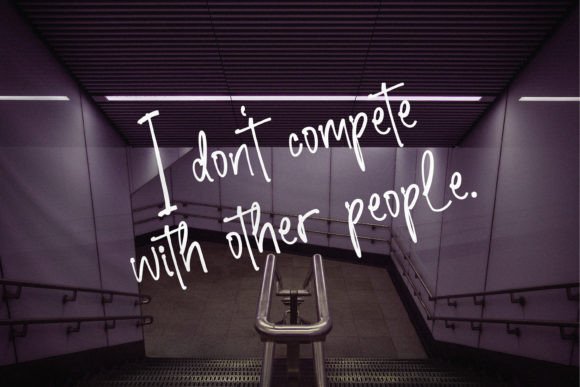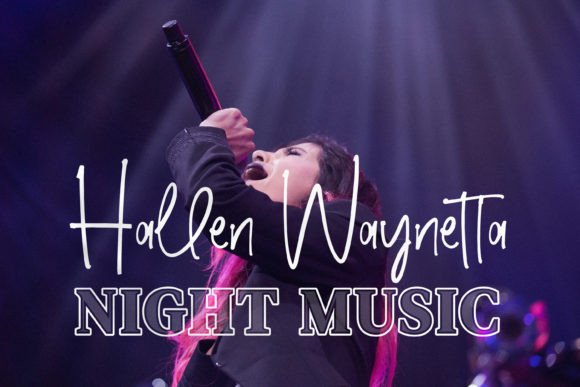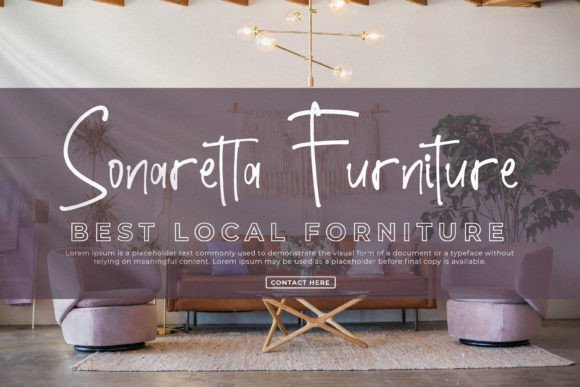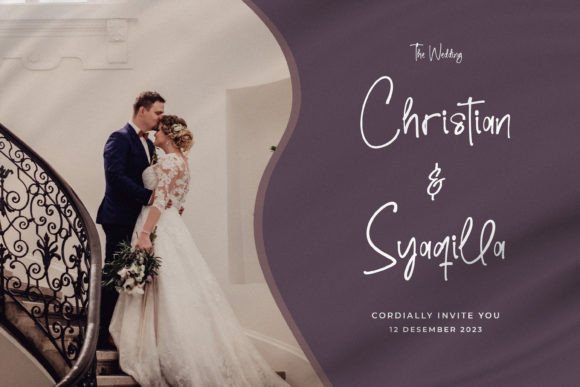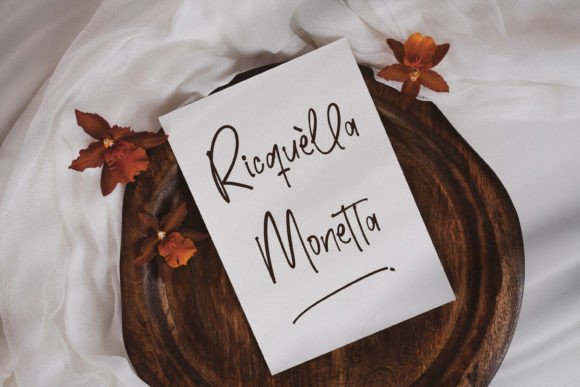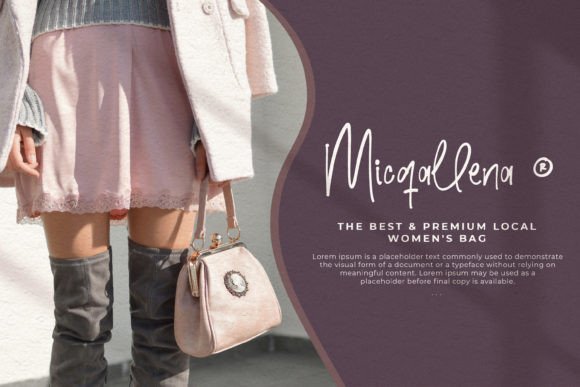
Introduction to Marqaleetta Font
Have you ever been in a creative flow, where the perfect font magically appears in your mind, and you just can’t wait to bring it to life? For many designers, this is a moment of pure bliss. For those who have been searching for that perfect handwritten font, we have some exciting news – the Marqaleetta Font is here to make your creative project shine.
This enchanting handwritten font is a game-changer for designers who want to add a touch of elegance and romance to their work. With its high-quality design and versatile style, Marqaleetta Font is guaranteed to elevate your next project from ordinary to extraordinary. Whether you’re working on a greeting card, a logo, or a headline, this design resource is sure to impress.
Key Features of Marqaleetta Font
- High-quality design resource ideal for creative projects, offering a unique and stylish touch.
- Supports a wide range of languages, making it a versatile choice for various creative projects.
- Features a modern and elegant design, perfect for branding, logos, and other design applications.
Honest Review: Marqaleetta Font
As a designer, I’m always on the lookout for high-quality fonts that can elevate my creative projects. The Marqaleetta Font is a free download that caught my attention, and I decided to give it a try.
What works well with the Marqaleetta Font is its versatility. It has a modern, elegant feel that can be used for a variety of design projects, from branding and marketing materials to editorial and publishing designs. The font also features a transparent background, making it easy to use with different backgrounds and images.
- ✨ Clean and modern design
- ✨ Versatile font suitable for various design projects
- ✨ Transparent background for easy use
However, I did encounter some limitations with the Marqaleetta Font. The font is only available in a limited range of weights, which can make it less suitable for complex design projects that require multiple font weights.
- ⚠️ Limited font weights
- ⚠️ May not be suitable for complex design projects
Overall, I was impressed with the Marqaleetta Font’s design quality and versatility. While it has some limitations, it’s a great resource for designers looking for a high-quality font for their creative projects.
Tips for Getting the Most Out of Marqaleetta Font
To get the most out of Marqaleetta Font, use it on a transparent background for a clean and modern look. Experiment with different font sizes and colors to create a unique design.
Common Use Cases for Marqaleetta Font
Marqaleetta Font is ideal for a variety of creative projects, including:
Graphic design
Typography
Logo design
Business cards
Marketing materials